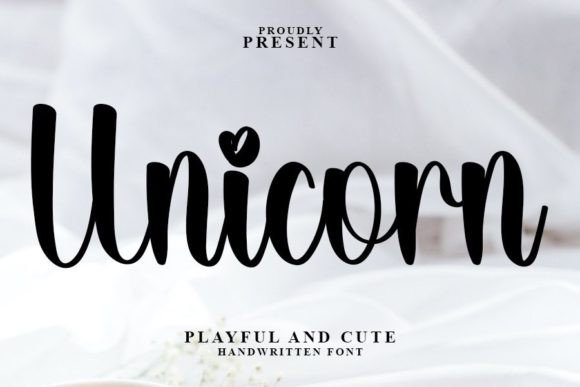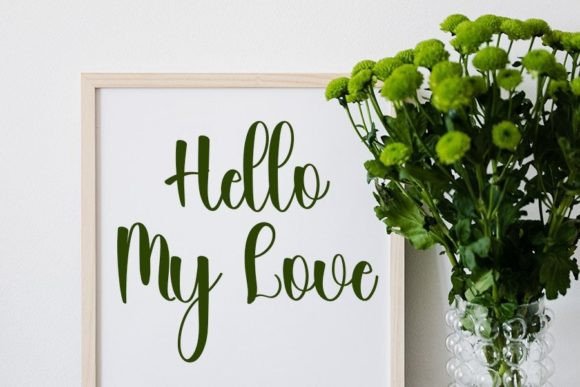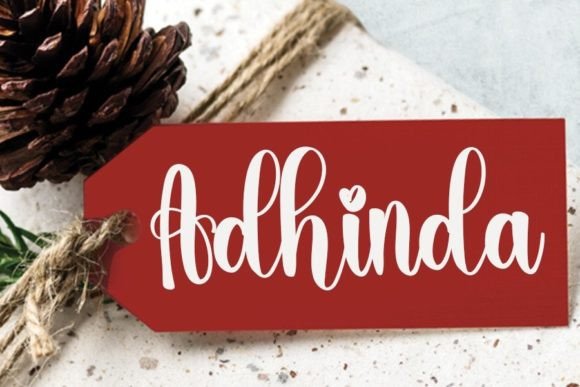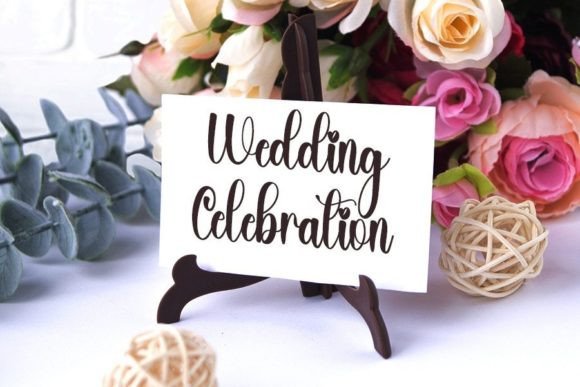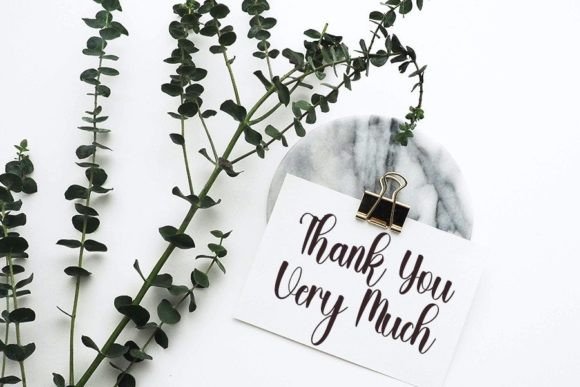
Unicorn Font
Unicorn is a happy handwritten font that will bring your design into a happy and fun mood. This font is perfect for branding, packaging, logotype, headline, wedding invitation, etc.